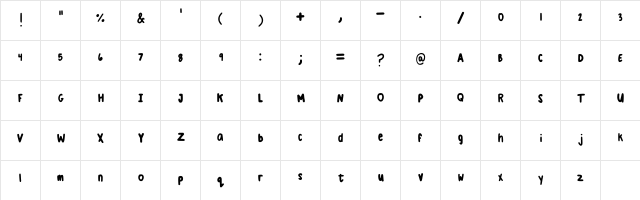
Little Big Alphabet Regular
Design Context for Little Big Alphabet Typeface
Little Big Alphabet is a composed and adaptable typeface that performs quietly and consistently across a wide range of design contexts.